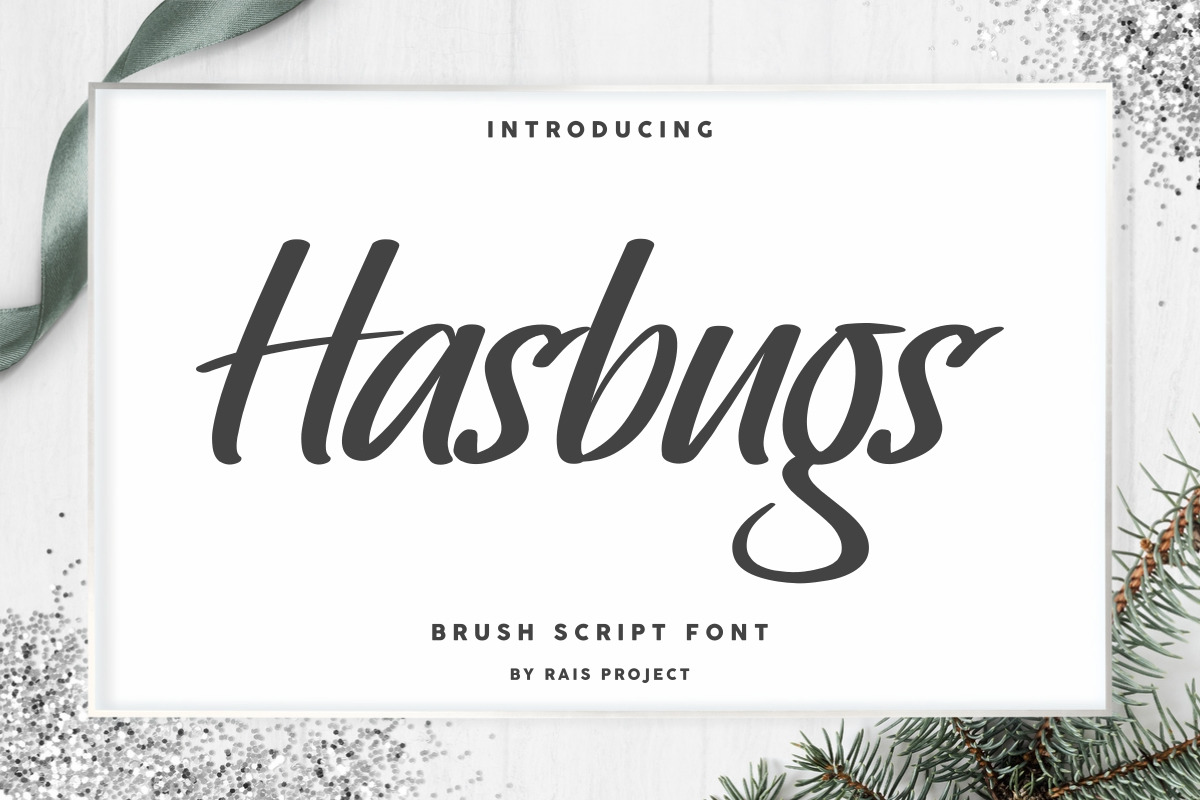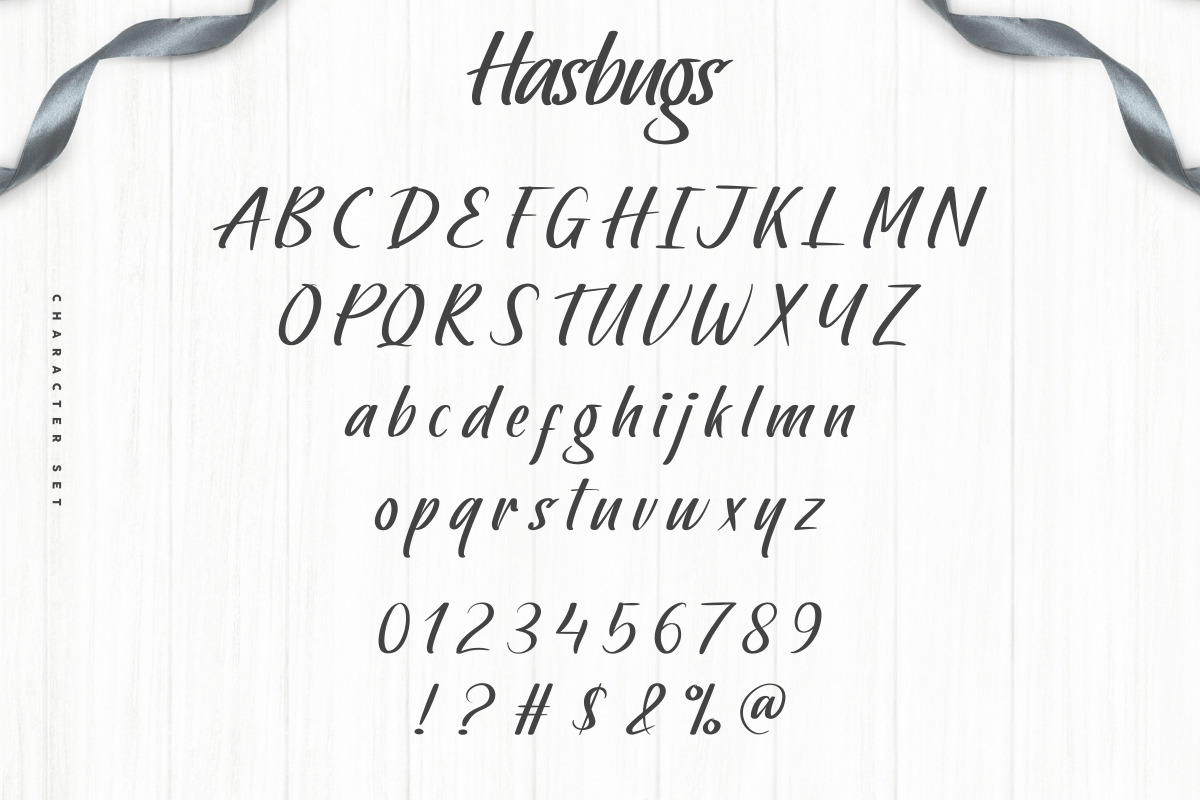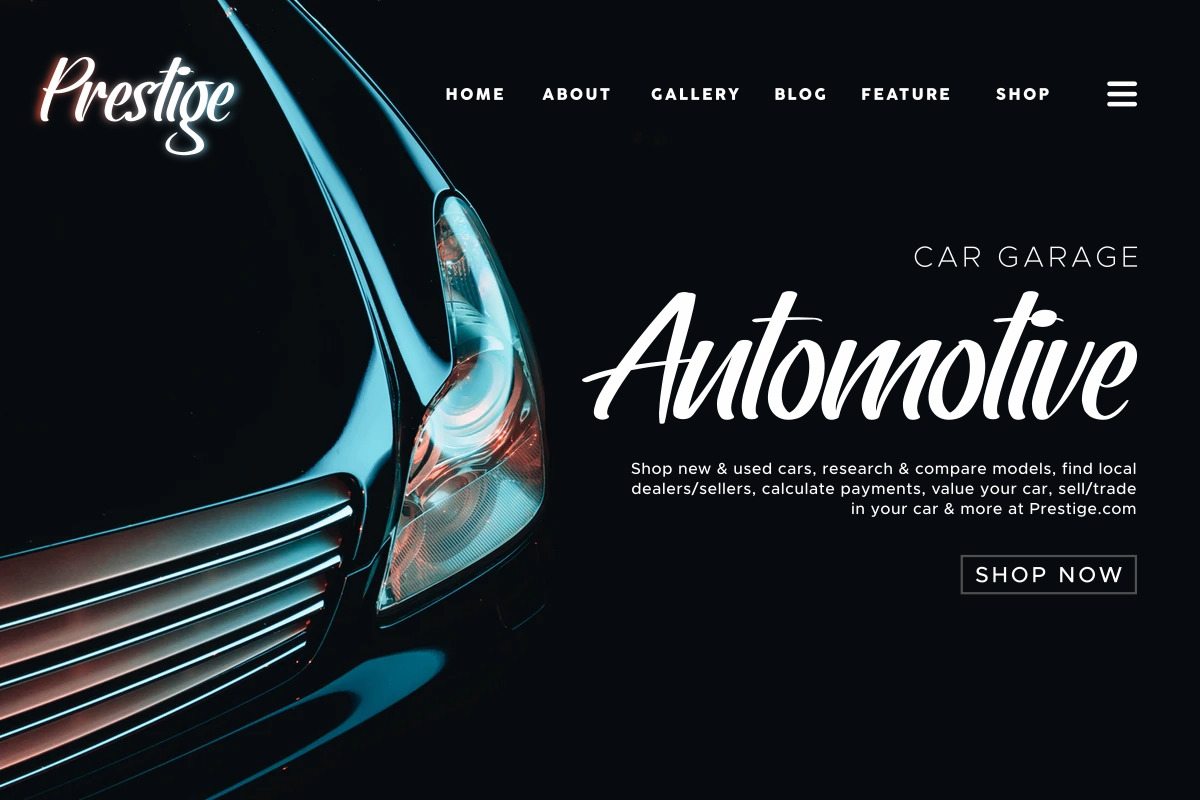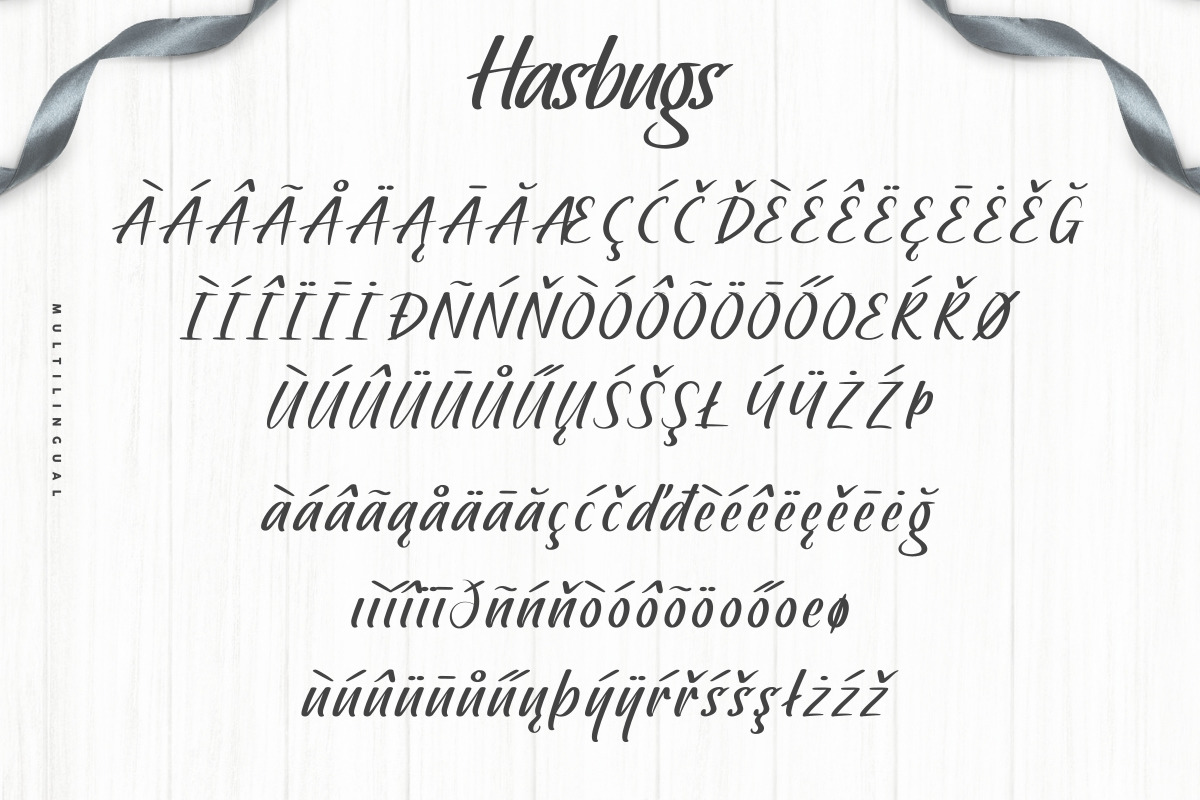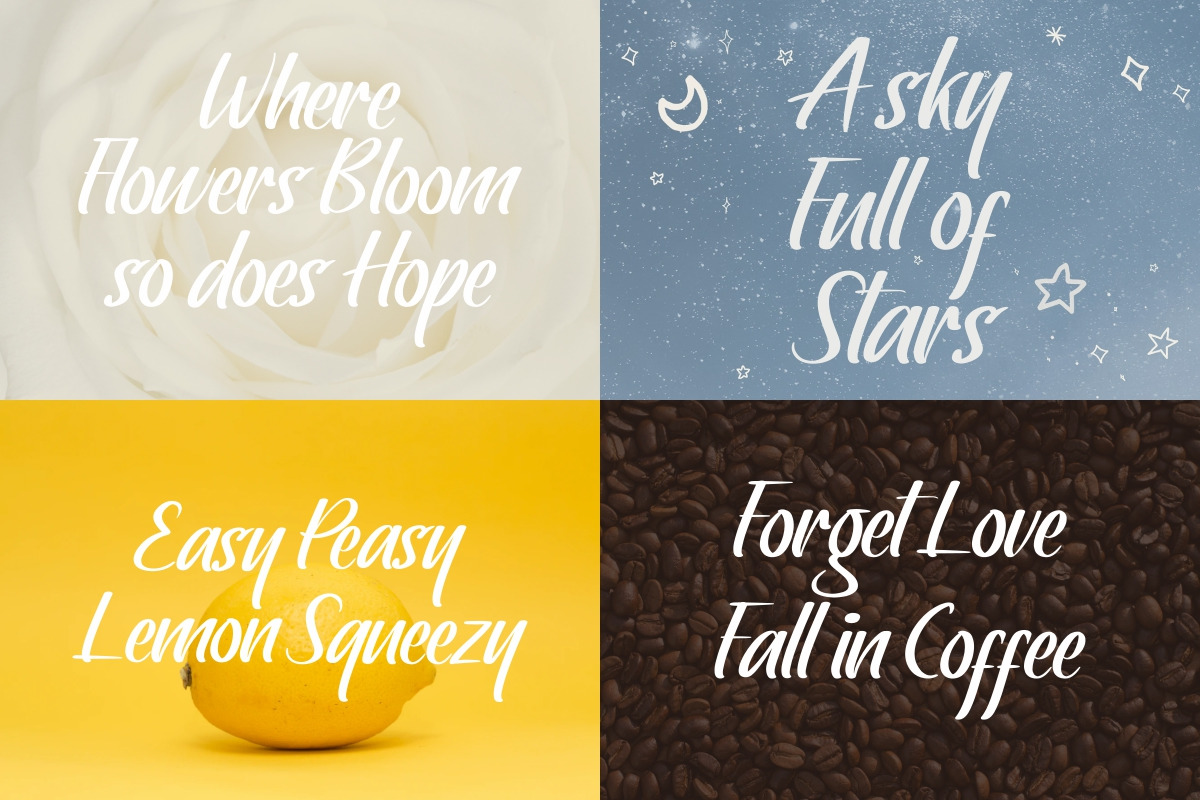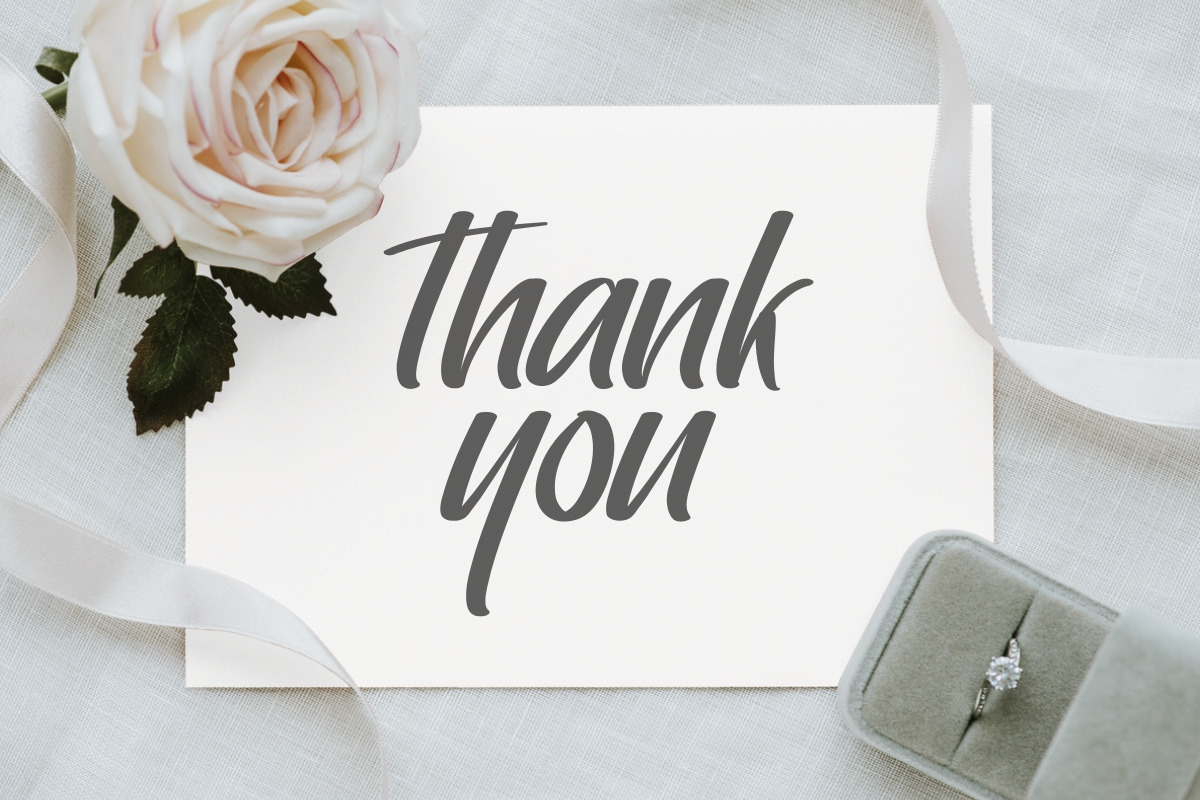
Hasbugs Brush Display Font
Hasbugs Font is a special brush display font with exclusive style. Great for Movie, Game, Magazine, Music, Video, Sports, Racing and many projects that need unique strong style
Hasbugs Font includes full set of AWESOME uppercase, lowercase letters, numerals, a range of punctuation and ligatures with a unique brush type.